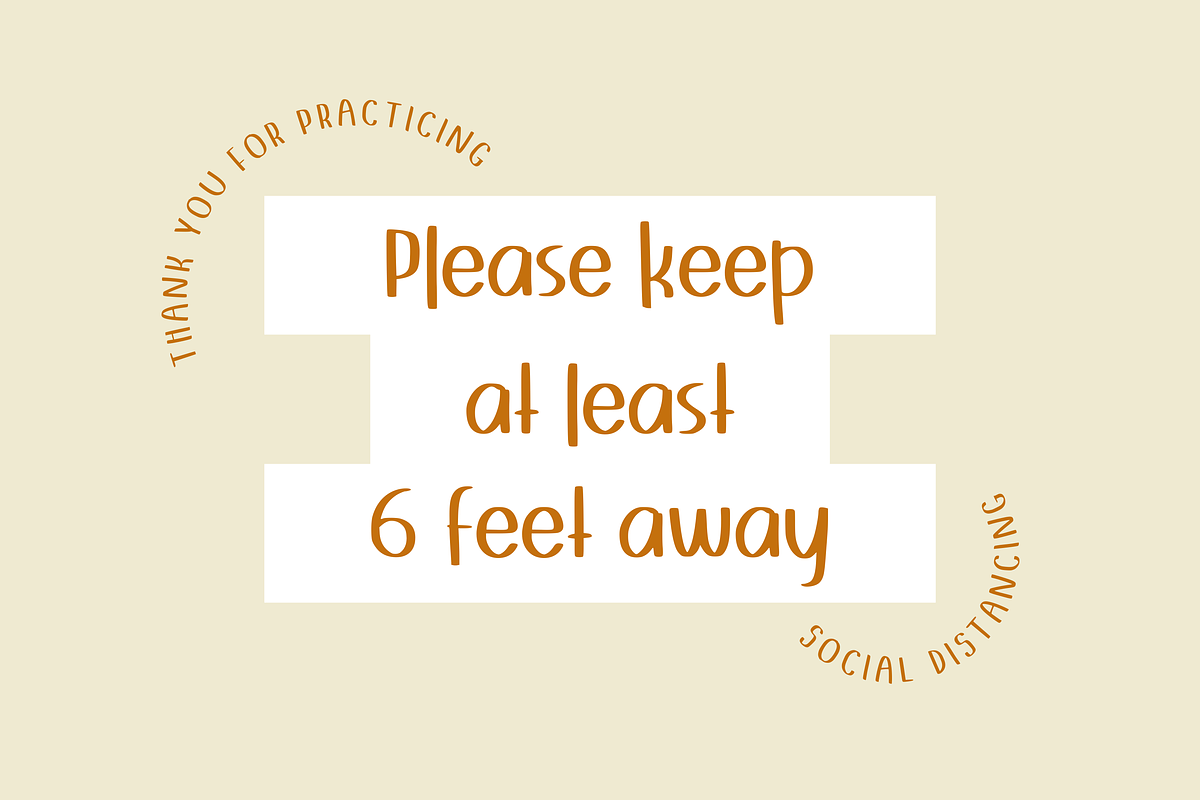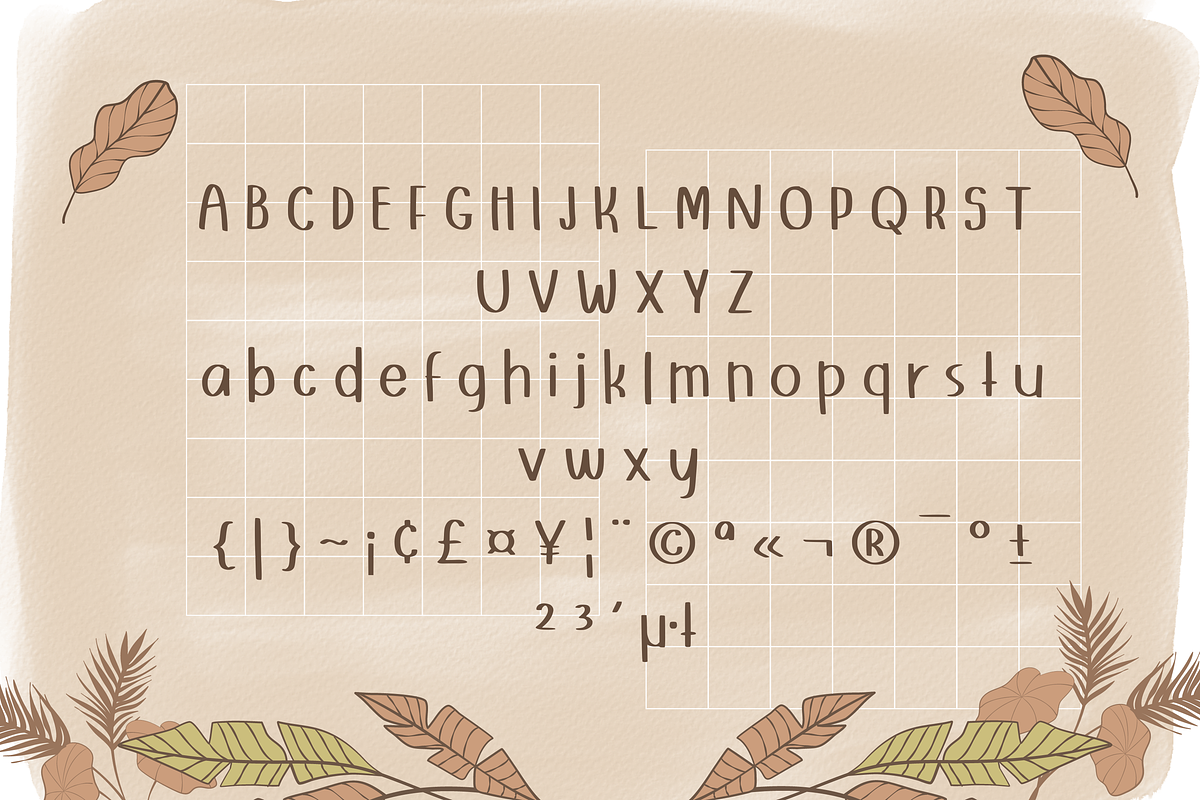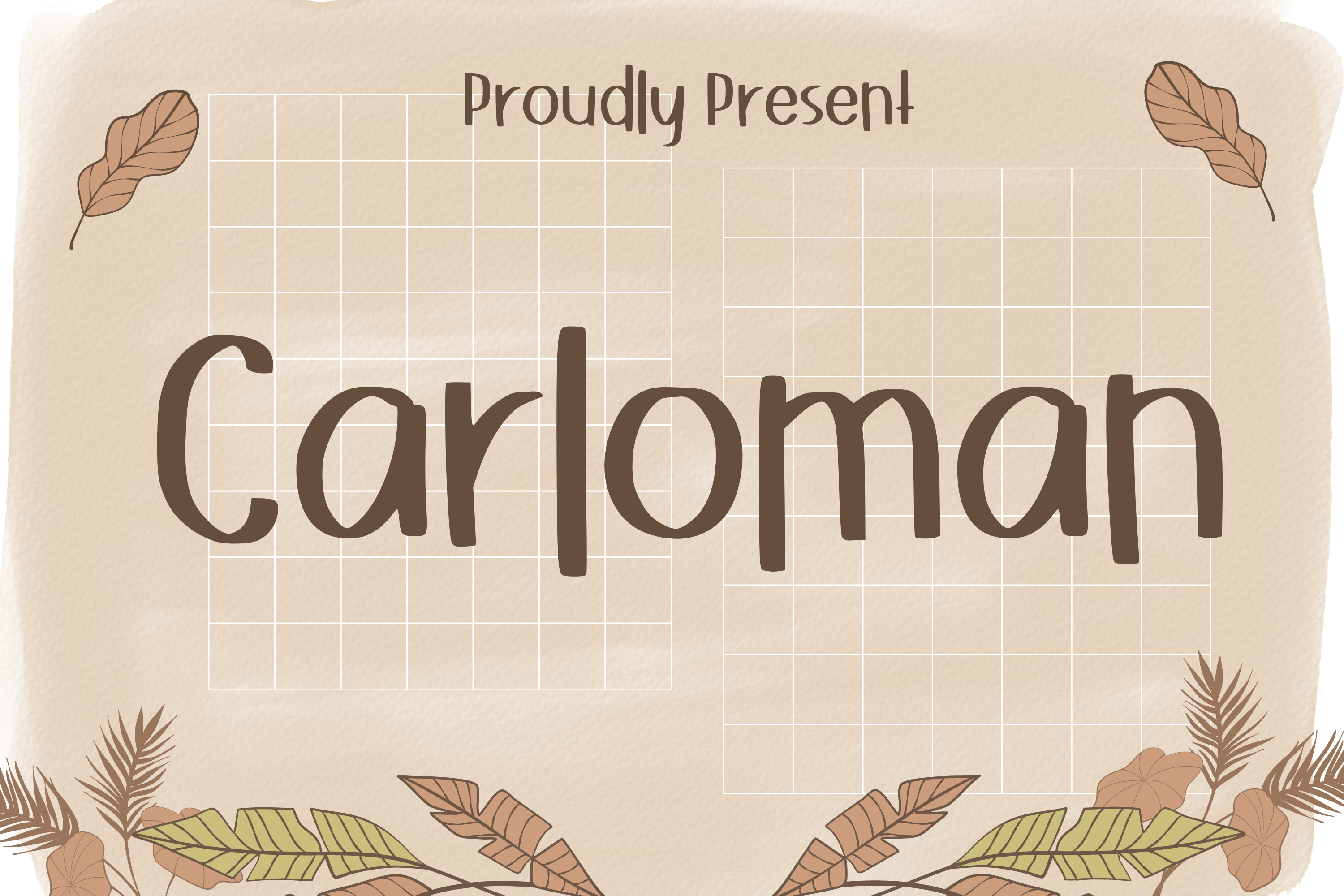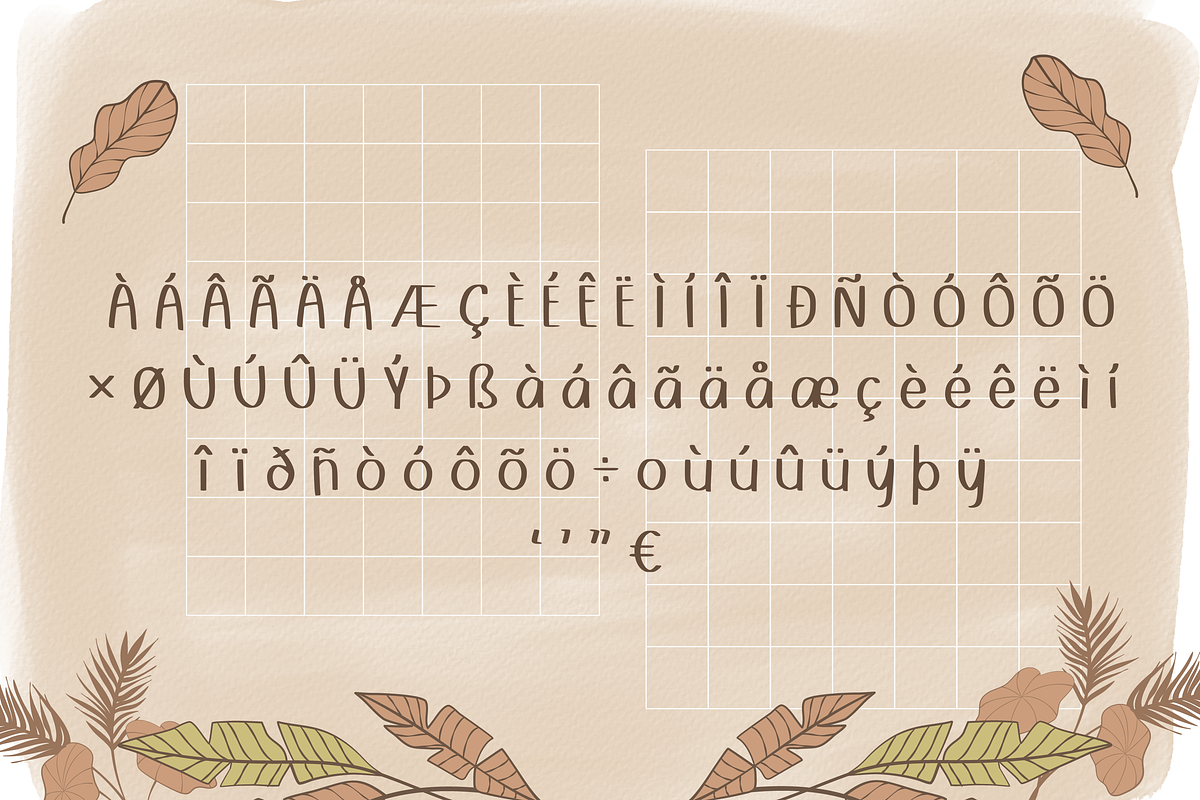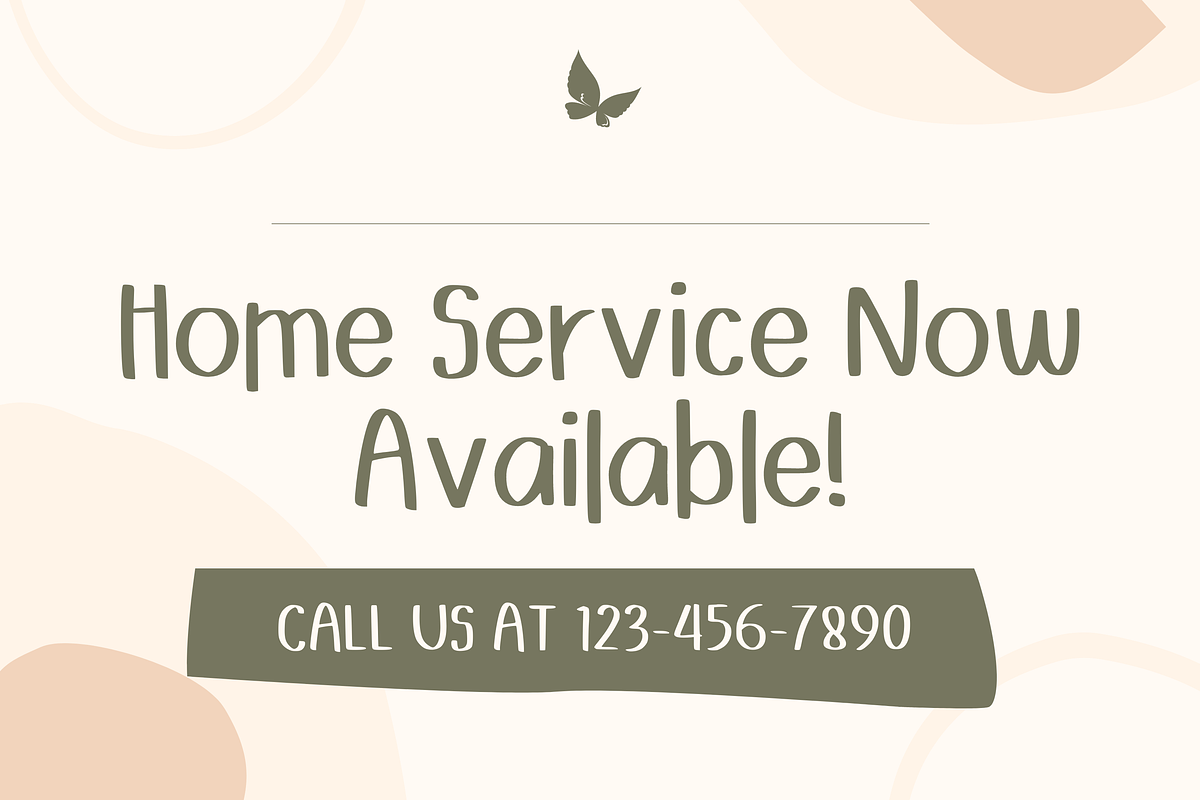
Carloman Font
Carloman is a cute and simple lettered handwritten font that can be used for all chalkboard quotes or teaching material! Its authentic look will add a realistic feel to your designs.